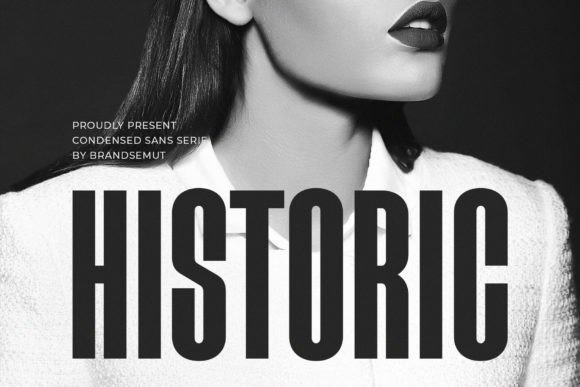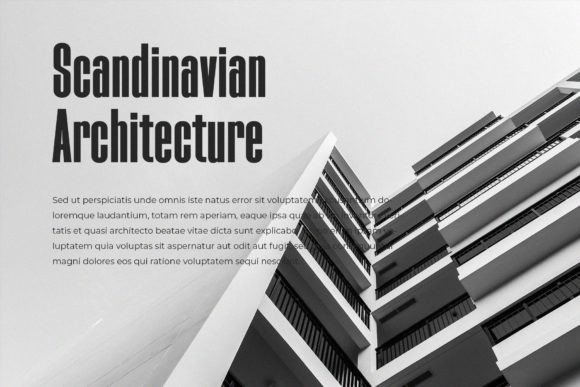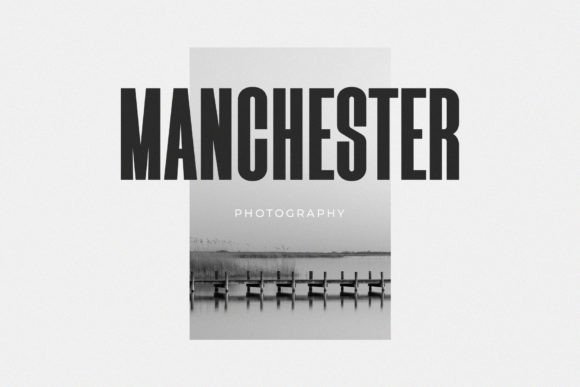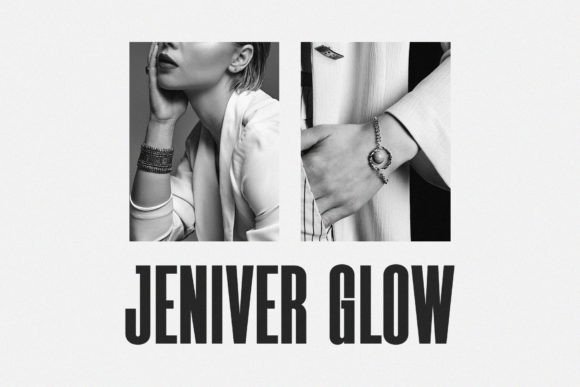
Historic Font
About the Historic Font
Add a touch of class to your work with the Historic Font, a truly exceptional typeface. Introducing Historic Condensed Sans Serif
Historic is a modern and simple font, best used as a display for headings, logos, branding, magazines, product packaging, and invitations. Historic comes with clean lines and smooth curves giving any project an extra touch of class.
Its condensed nature makes Historic ideal for headlines and short impactful statements, lending itself well to branding applications requiring a strong, yet refined presence. Avoid using it for lengthy body text or UI elements; its condensed form reduces readability in smaller sizes.
Historic projects a modern and elegant personality, suited to sophisticated brands and projects requiring a touch of understated luxury. Consider pairing it with a classic serif like Garamond for a balanced, timeless feel, or a clean geometric sans-serif like Futura for a more contemporary aesthetic. A script font like Playfair Display could add a touch of handwritten elegance to selected elements.
For maximum impact, use Historic sparingly, allowing its clean lines to command attention. It works exceptionally well in logos, signage, and packaging design for high-end products.
Historic Font Usage Examples
Historic Font Example